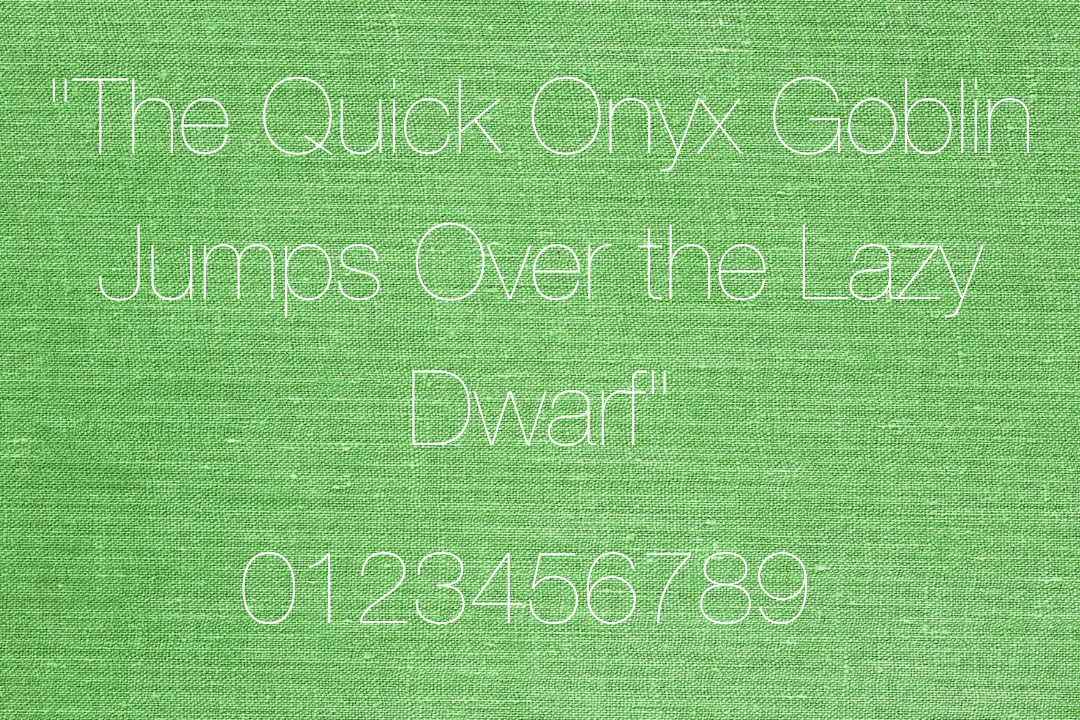
Helvetica Neue font
About Helvetica Neue Font
Helvetica Neue Font is a modern version of the Helvetica typeface, designed by Swiss typeface designer Max Miedinger and Eduard Hoffmann and published through Haas Type Foundry in 1957. It is a popular font choice for graphic designers and is free to use in various design projects, including branding, signage, and advertising.
Helvetica Neue is a sans-serif typeface, which means it does not have the small decorative lines called “serifs” at the end of the strokes that make up the letters. The characters of this unique typeface are designed with clean, geometric shapes and have a consistent stroke width throughout. The characters have a uniform width, which gives the font a sense of balance and harmony.
The letters are created with easy shapes, which creates them easy to read and understand at a glance. It is designed to be highly legible, even in small sizes, and it’s suitable for use in a wide variety of contexts, including print and digital media.
Helvetica Neue also includes a wide range of characters, including capital letters and small letters, numerals, punctuation marks, and special characters such as the ampersand, at-sign, and currency symbols. It also contains a full set of alphabet marks for use with non-Latin alphabets, such as Greek, Cyrillic, and Hebrew.
About Designer
Helvetica Neue is a reworking of the original Helvetica typeface, which was designed by Max Miedinger in 1957. Miedinger was a Swiss typeface designer who performed at the Haas Type Foundry in Switzerland. He was heavily influenced by the German design tradition and was known for his clean, geometric designs. Helvetica Neue was his most prominent and victorious design and it evolved into one of the most widely used typefaces of the 20th century.
This font was developed by the design team of Monotype, which is a company that specializes in typeface design and development. The team updated the original design of Helvetica Neue to create a more modern and versatile version of the font. The new version was released in 1983 and quickly became popular in the design community. The design team also created different variations of Helvetica Neue like Light, Medium, Bold, and others.
Uses of Helvetica Neue Font
The Helvetica Neue Font has a neat and straightforward texture look that is perfect for various kinds of designs and methods. It is an adjustable font that can be used for a vast range of innovation projects, including publications and long paragraphs. The clean, simple lines and legibility of the typeface make it easy to read in small and large sizes.
However, it’s important to note that readability and legibility can be affected by factors such as line spacing, font size, and the amount of text on a page, so it’s important to consider these factors when using it for magazine or book design. Additionally, it’s important to use appropriate font pairings for the headlines and subheadlines that match the body text in order to create balance and harmony in the overall design.
You may utilize the Helvetica Neue font with morris sans font and ff meta font and make gorgeous designs. This stunning typeface is a versatile font that can be used in a wide variety of design projects, such as:
Branding and identity design:
Helvetica Neue is often used in logos and other branding elements, as its clean, geometric lines and neutral appearance make it easy to read and recognize.
Print design:
This stylish font family is typically used in flyers, signs, and other print materials.
Web design:
Helvetica Neue is a popular choice for web design, as it is easy to read on screens and works well in both small and large sizes.
Advertising:
This font is often used in advertising campaigns, as its clean, modern look helps to convey a sense of reliability and trustworthiness.
Signage:
It is a font of choice for signage, especially in public spaces, due to its clear and easy-to-read design.
How does Helvetica Neue compare to other popular sans-serif fonts?
It is a popular font choice for graphic designers and is often the same as other popular sans-serif fonts such as Arial, Futura, and Gill Sans.
What are some common design projects that use Helvetica Neue?
Common design projects that use Helvetica Neue include branding, signage, advertising, magazines, books, brochures, business cards, and web design.